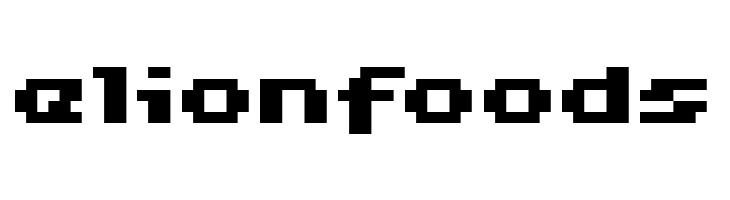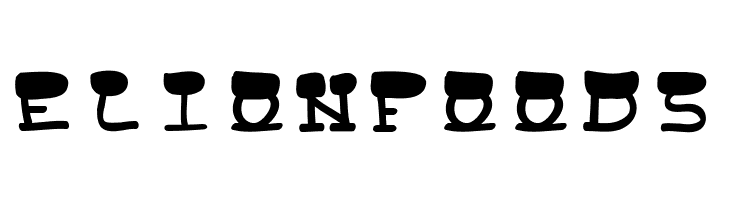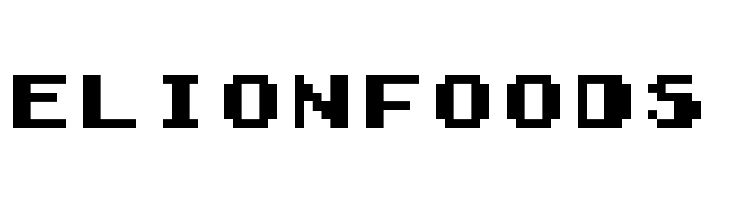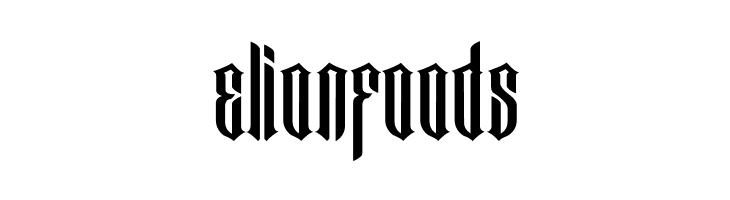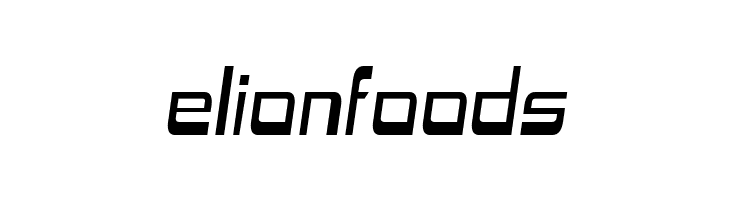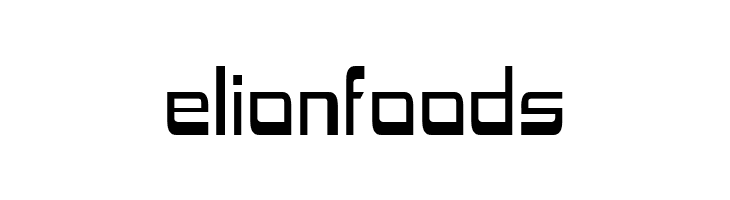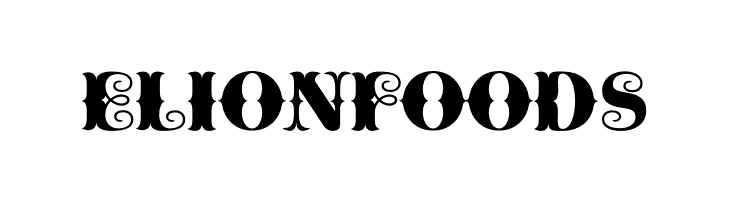
( David Lindecrantz - lindecrantz.com/ )
A bold, pixelated font inspired by retro digital displays.
( Fausto Furioso - instagram.com/fausto.jpg )
A bold, playful font with a Western-inspired, handcrafted look.
( Jimmy Campbell )
A pixelated, retro font inspired by early digital graphics.
( Out of Step Font Company - Dan Steinbok - outofstepfontco.com )
A geometric, modern font with tall, narrow characters and sharp angles.
( Peter Bielous )
A bold blackletter font with sharp, angular lines and dramatic strokes.
( Typodermic Fonts - Ray Larabie - www.typodermicfonts.com/ )
A futuristic, angular italic font with a bold and dynamic style.
( Typodermic Fonts - Ray Larabie - www.typodermicfonts.com/ )
A futuristic, geometric font with sharp angles and clean lines.
( deFharo - Fernando Haro - defharo.com )
A bold, decorative font with bifurcated serifs and intricate designs.
( deFharo - Fernando Haro - defharo.com )
A decorative bifurcated font with a bold, Western-inspired style.
A bold, distressed font with a vintage Western style.